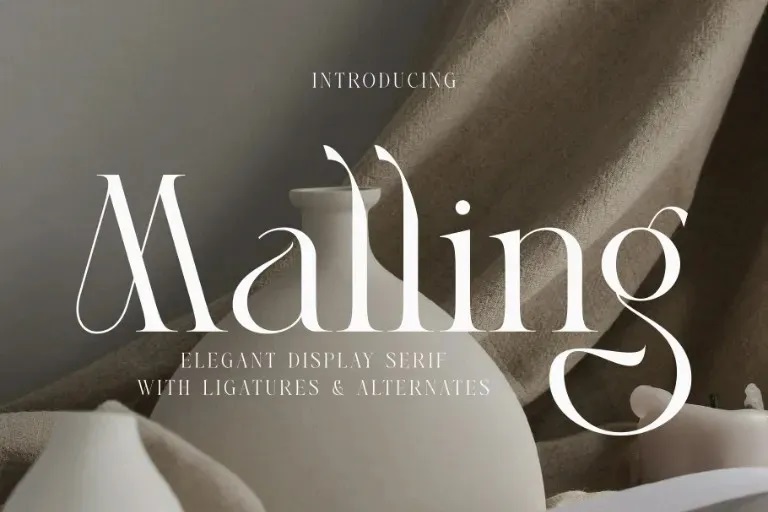
Malling Font
Malling Font is a modern serif font that is suitable for a display purposes. Hailing from Argentina, Malling creatively adds clean and luxurious look to your projects such as websites, modern logos, branding identities, social media quotes, wedding invitation and even more!
Malling has beautiful capitals of the A to Z type and is complete with ligatures and alternate letters, and so this font is perfect for for any large scale project that you may have in mind.
Malling Serif Font